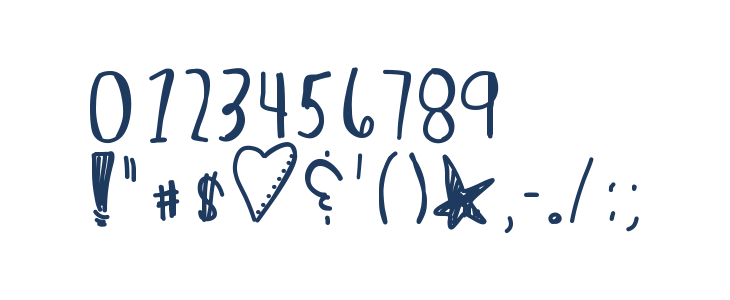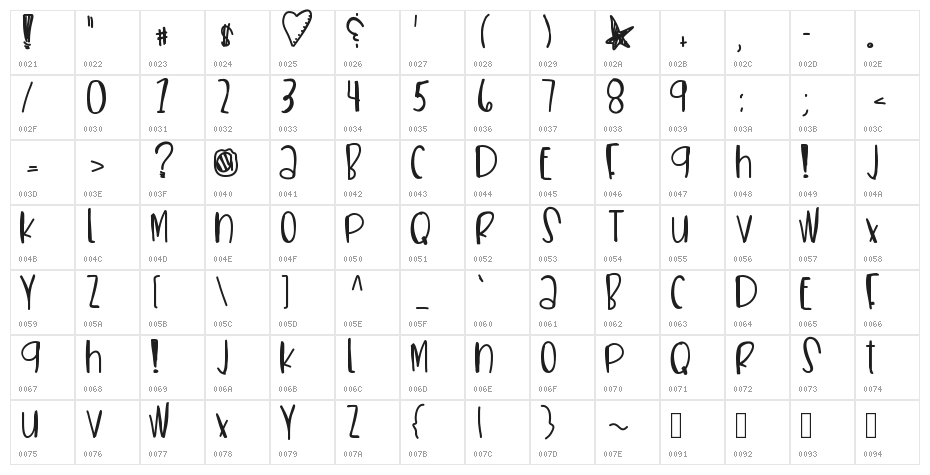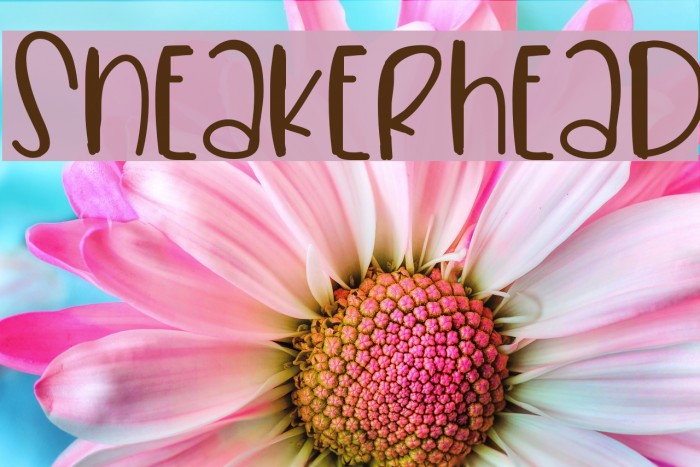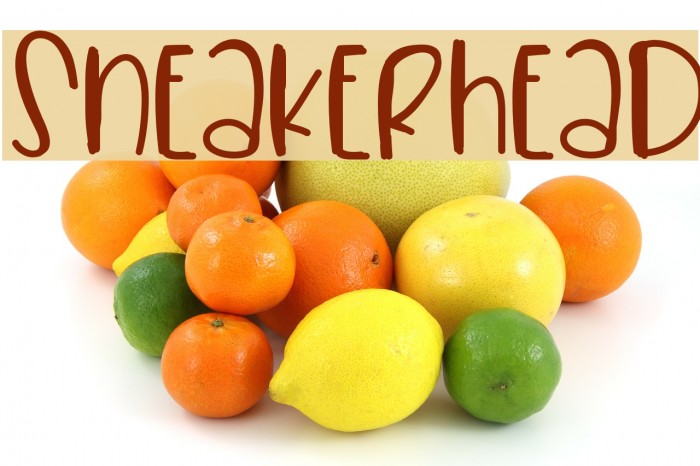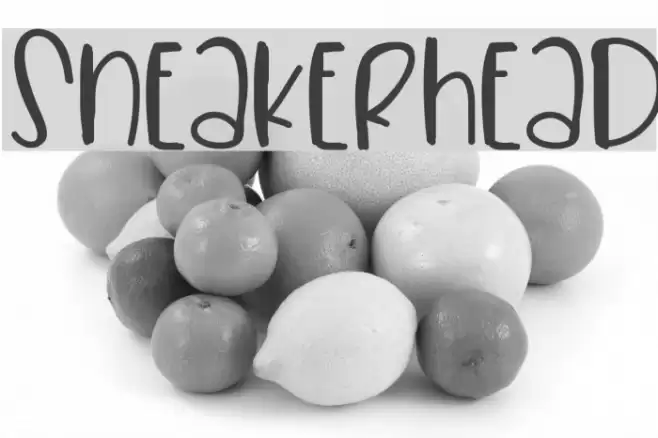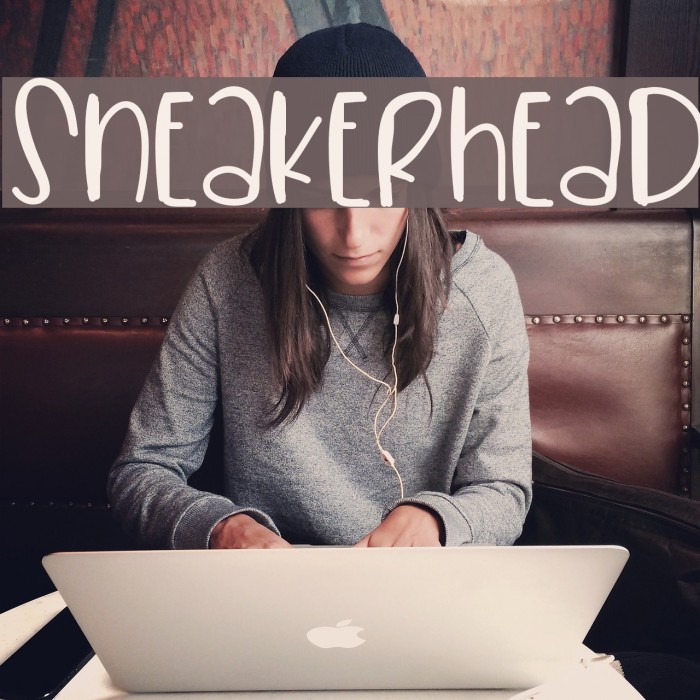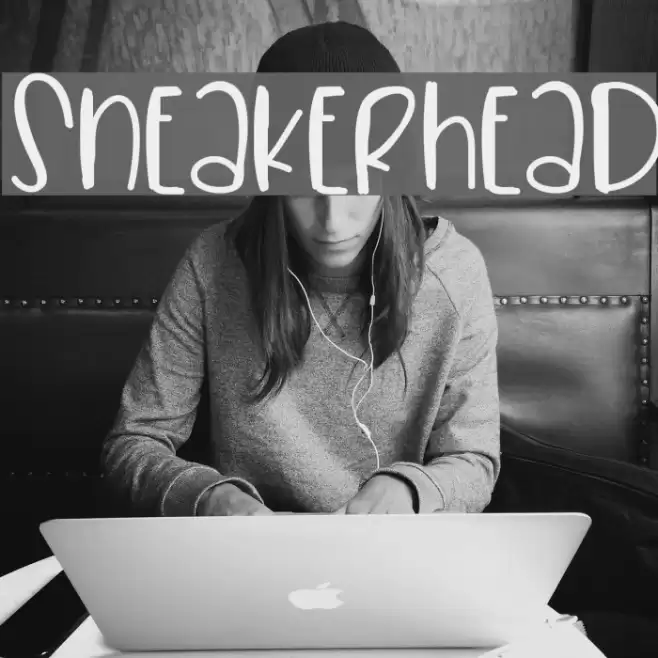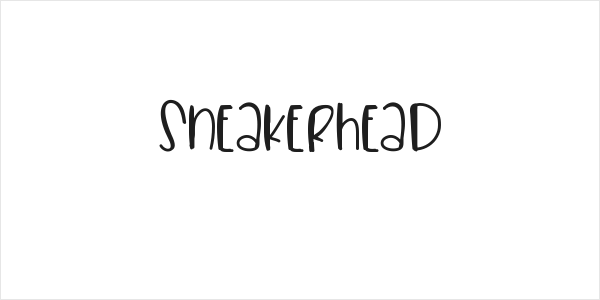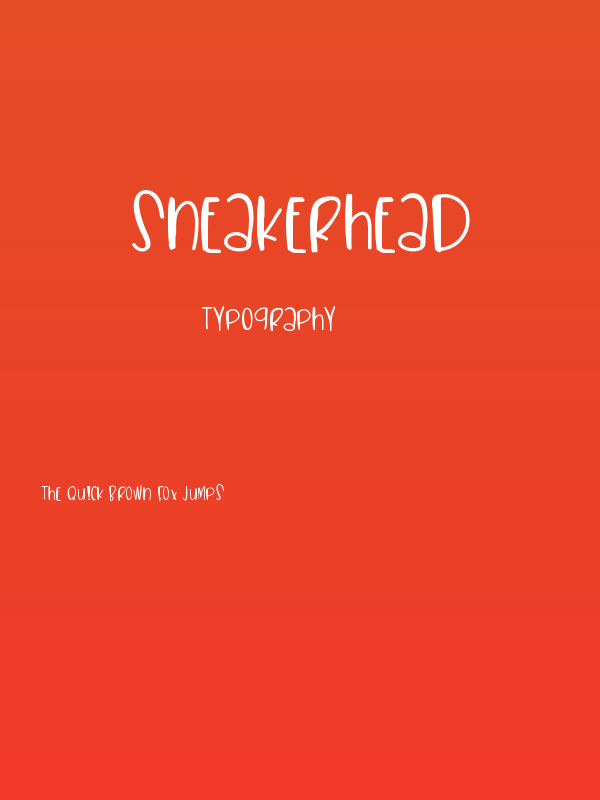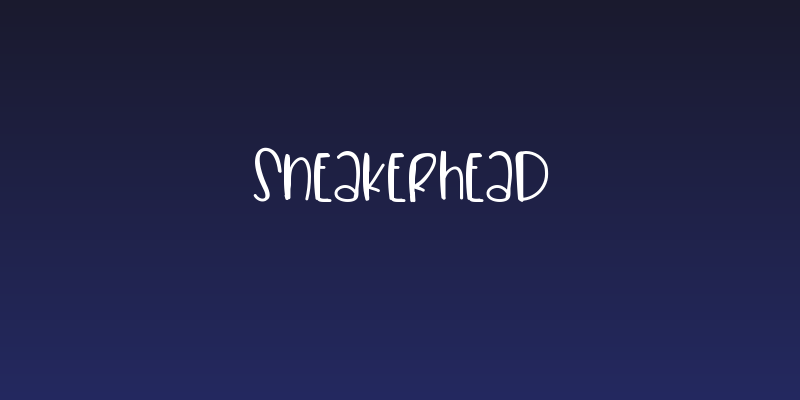
Sneakerhead Font
Sneakerhead Description
This playful and energetic font features a handwritten style with a casual and informal appearance. The letters are slightly irregular, giving it a whimsical and approachable feel. The strokes are bold and consistent, with a slight tilt that adds to its dynamic character. The font includes both uppercase and lowercase letters, numbers, and a variety of special characters. Its unique style makes it stand out, perfect for projects that require a personal touch or a fun, lively vibe. The font's design is versatile, suitable for various creative applications.
| Proposed Projects | Ideal for greeting cards, children's books, playful branding, social media graphics, and creative posters. |